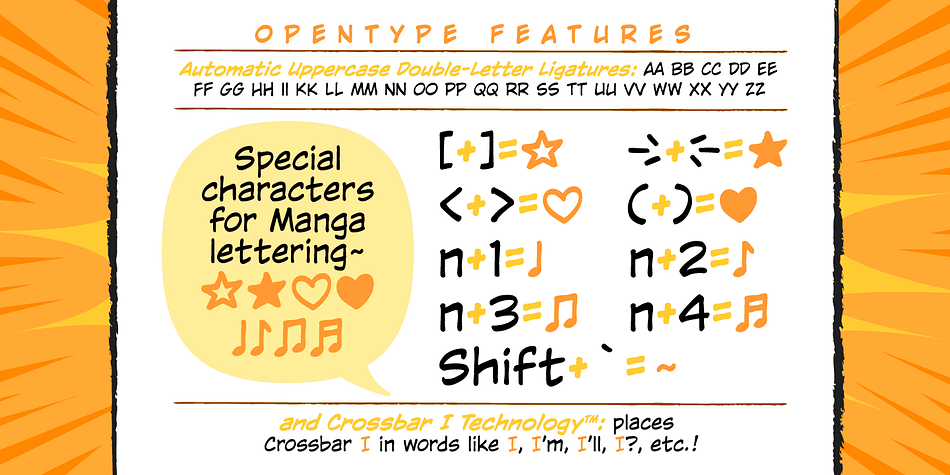
Designed by John Roshell, Wildwords Lower is a comic and hand drawn font family. This typeface has four styles and was published by Comicraft.
WILD WORDS! Buh-Buh-Buh-DUH-DUH! WILD WORDS!
Wild Words never lose it! Wild Words never chose this way… Wild Words never close their eyes… Wild Words always sh—
I’m sorry?
WILD WORDS is NOT a song by Duran Duran?
Really?
But I got myself the Simon Le Bon 80’s haircut and my MAD MAX outfit and everything…
Now available in lower case?
Well that’s good too, right?